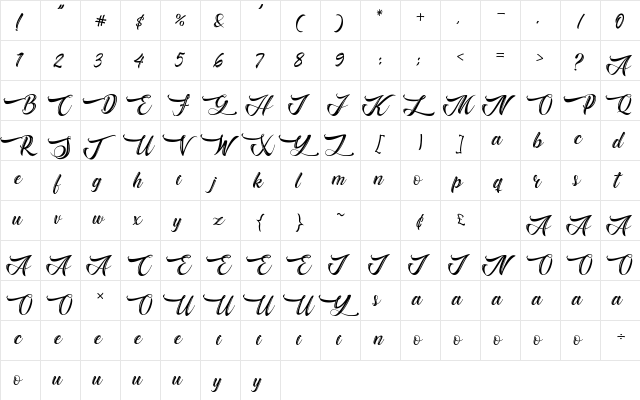
Bughartta Regular
| Foundry | Kotak Kuning Studio |
Design Context for Bughartta Typeface
Bughartta is a composed and adaptable typeface that performs quietly and consistently across a wide range of design contexts.